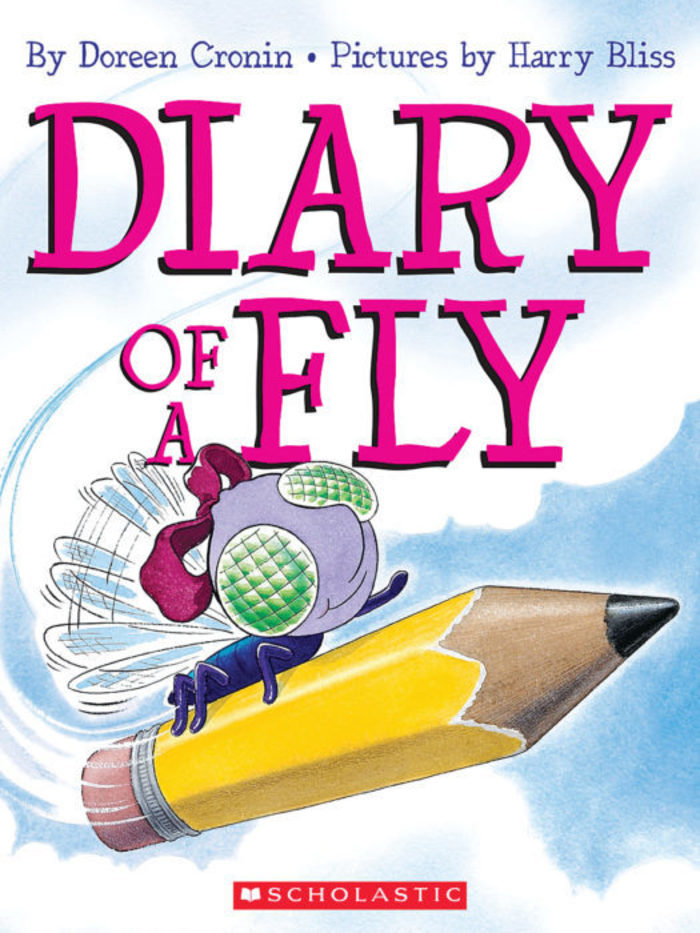
Diary of a Fly Font
BookDiary of a Fly is a children’s book, by author/illustrator team Doreen Cronin and Harry Bliss. It chronicles an insect's life and begins with Fly heading to school for the first time, playing with her siblings, and spending time with her friends' Worm and Spider.
Dschoyphul by Robert Schenk, a hand-lettered serif typeface that was hastily created with a pen, is the font used for the book's title. It is available in both a standard and an oblique style.